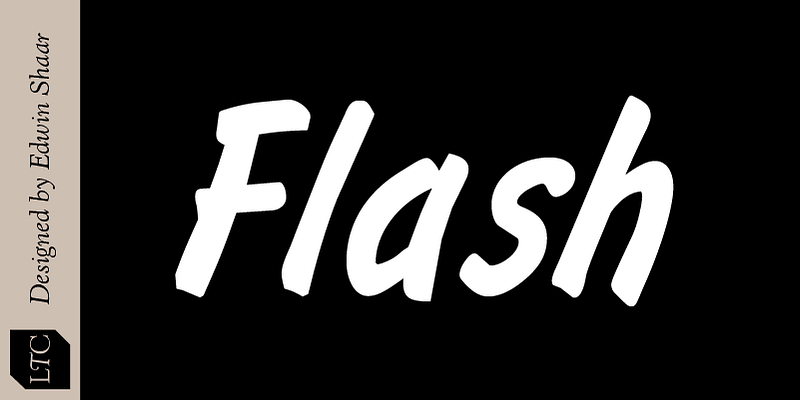
LTC Flash Font Free Download is a bold, energetic script typeface that radiates vintage flair and dynamic motion. Originally designed in the 1930s, this font captures the spirit of classic advertising and retro signage, making it perfect for branding, posters, packaging, and any project that needs a strong visual punch with nostalgic charm.
Its flowing strokes and sharp angles give designs a handcrafted, expressive feel that stands out in both print and digital formats. Whether you're working in Adobe Illustrator, Photoshop, or Canva, LTC Flash is easy to integrate and delivers instant character to headlines and logos.